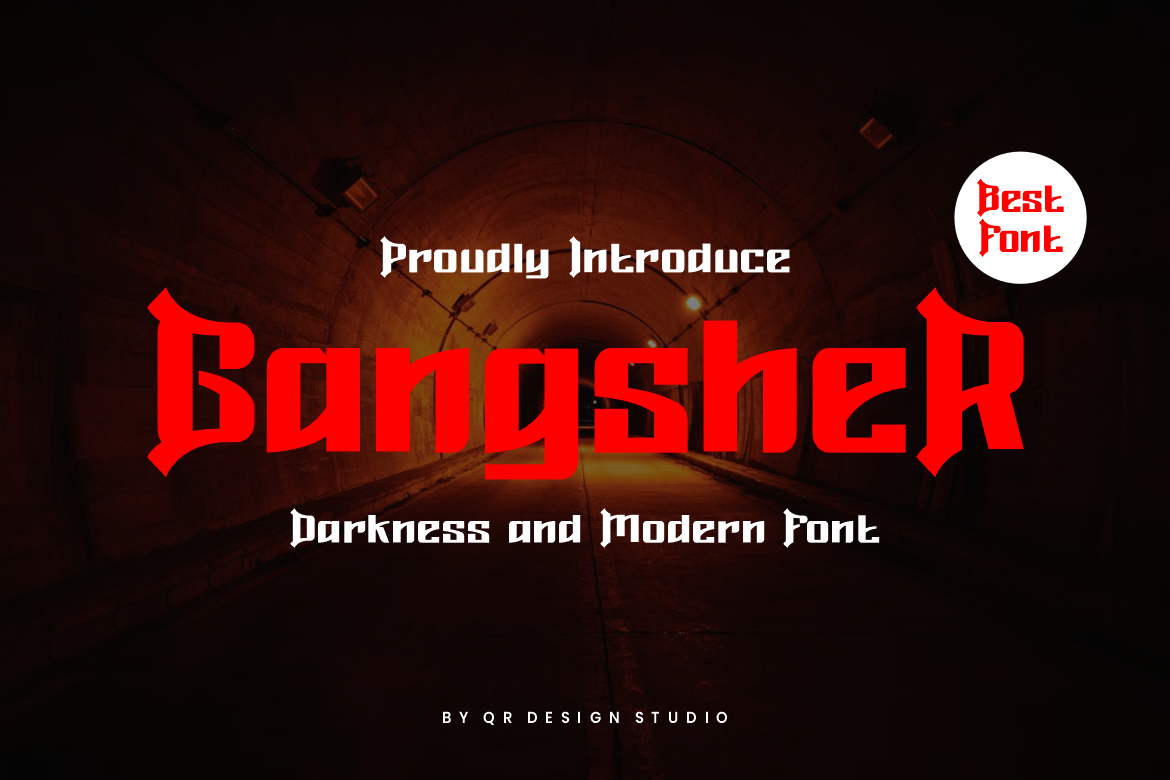
Gangsher - Rock & Medieval Font
Gangsher - Rock & Medieval Font is a bold and authentic display font. The font is suitable for any branding project like poster, logo, sport, and many more. Outstanding in a wide range of contexts.